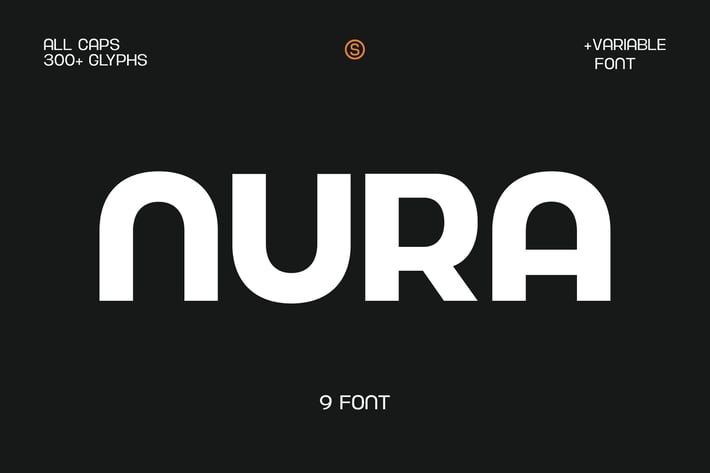
Nura - Variable Font
Nura is a bold geometric sans-serif variable font family built for logos, branding, and high impact display design. With a clean all caps structure and smooth rounded arches, Nura delivers a modern, confident personality that works across industries, from tech startups to fashion brands.
- Variable font with weight axis from 100 (Thin) to 900 (Black)
- 9 static font styles: Thin, Extra Light, Light, Normal, Medium, Semi Bold, Bold, Extra Bold, Black
- All caps design with 300+ glyphs
- Smooth geometric letterforms with rounded arches
- Clean, legible at all sizes, from small labels to large displays